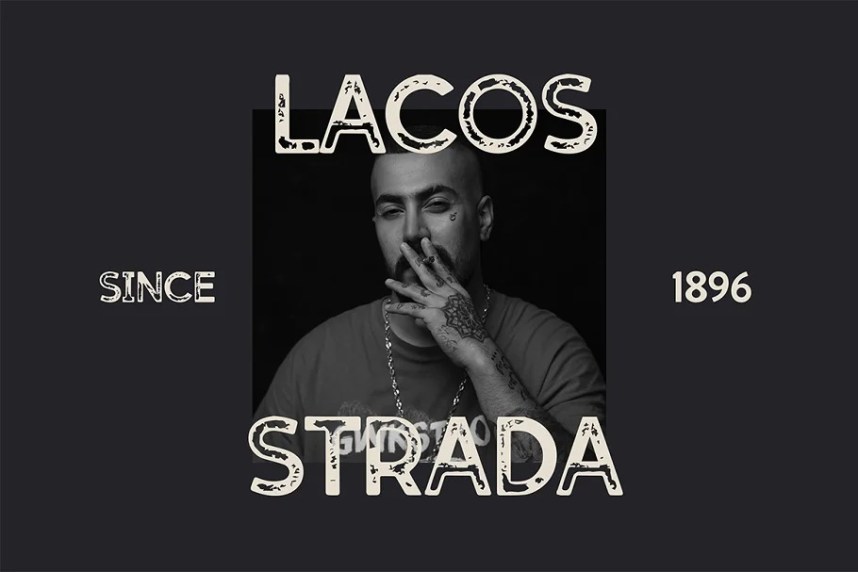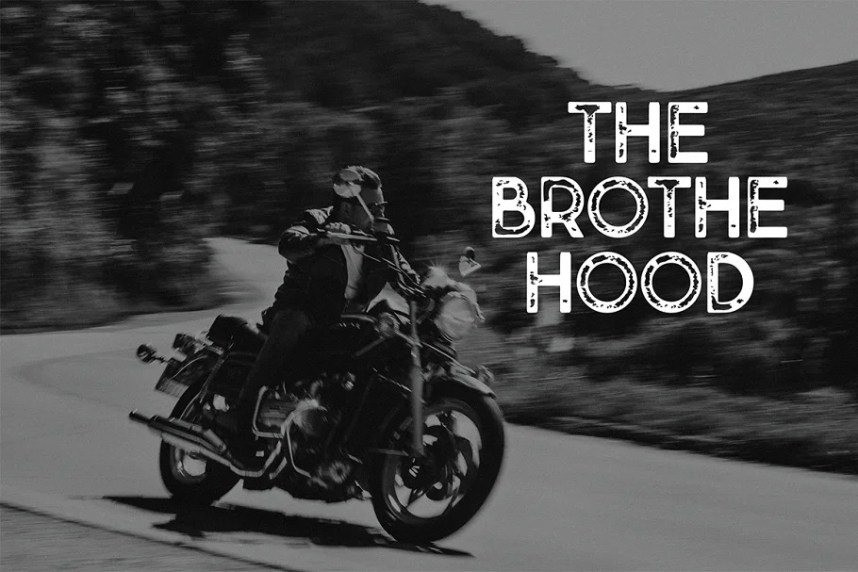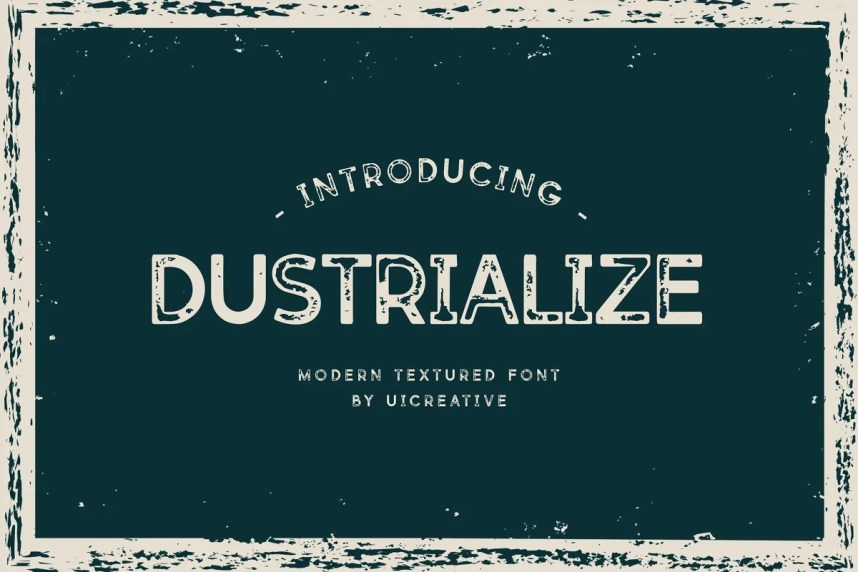
Dustrialize Font
Dustrialize Font is a sans-serif display font that is inspired by newspaper headlines and modern typography. This font is ideally suited for a wide variety of projects, such as signature, stationery, logo, wedding, typography quotes, magazine or book covers, website headers, clothing, branding, packaging design, and more. Also, fashion-related branding or editorial design displays both masculine and feminine qualities.